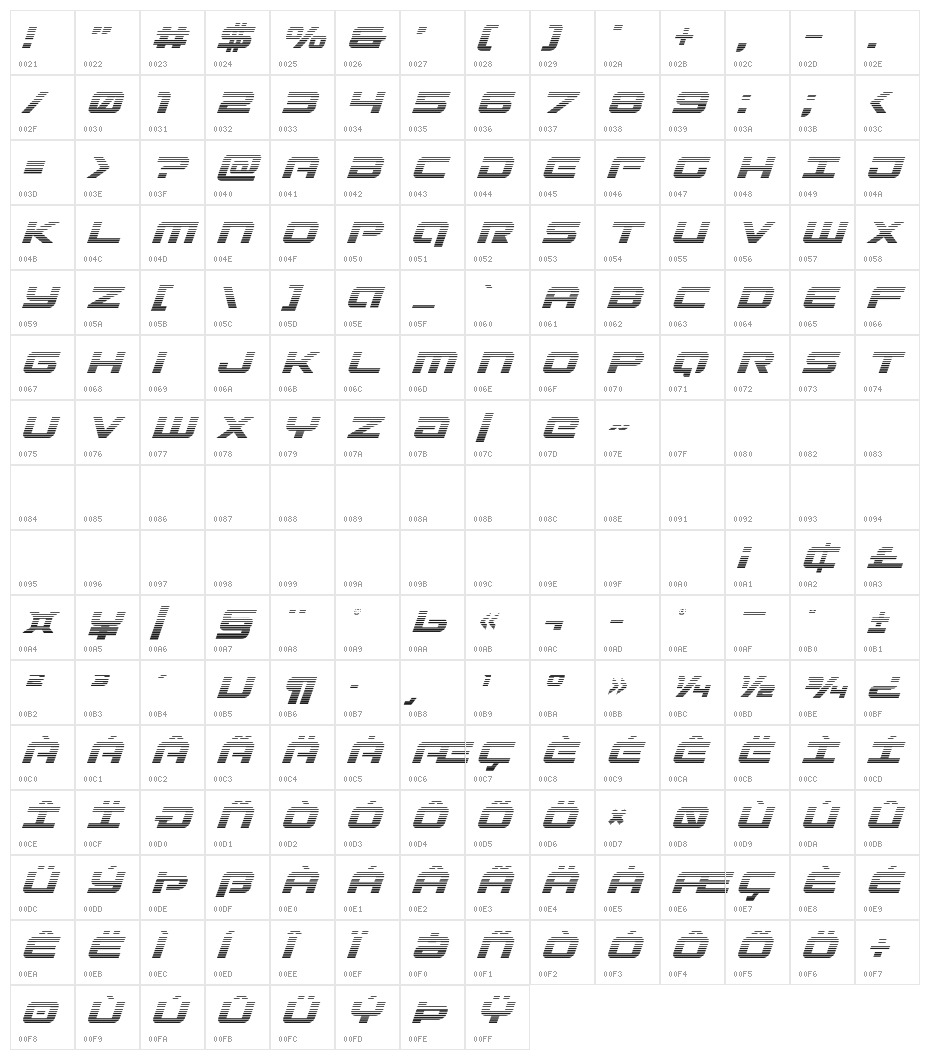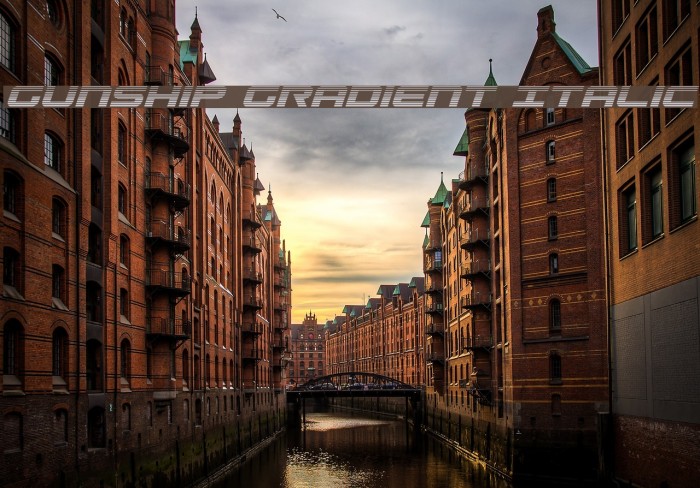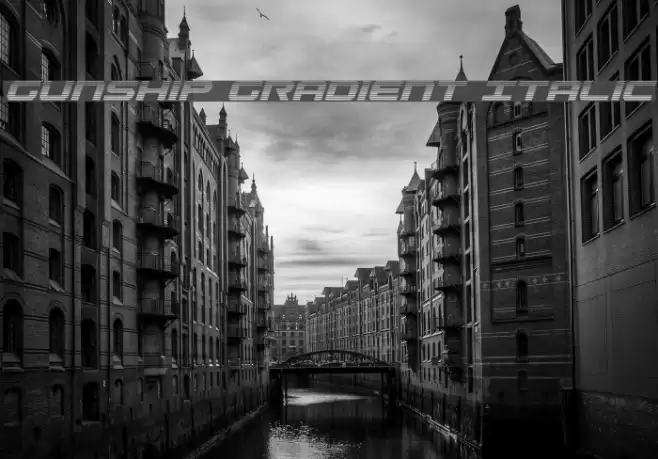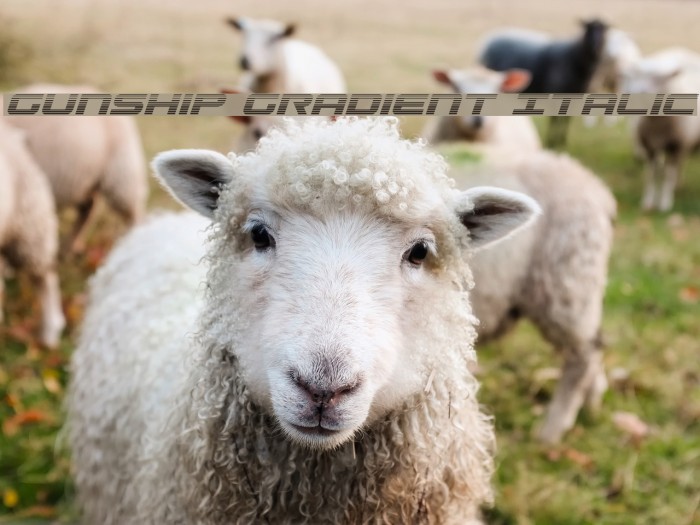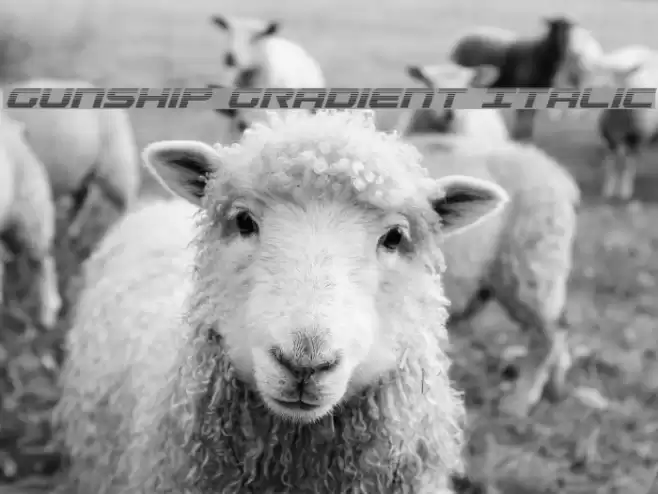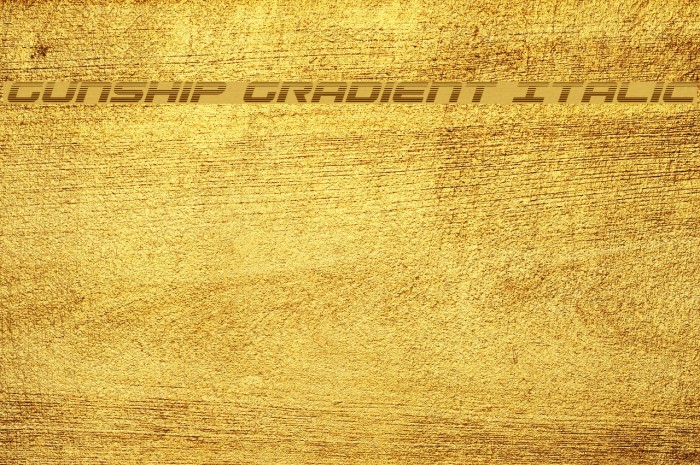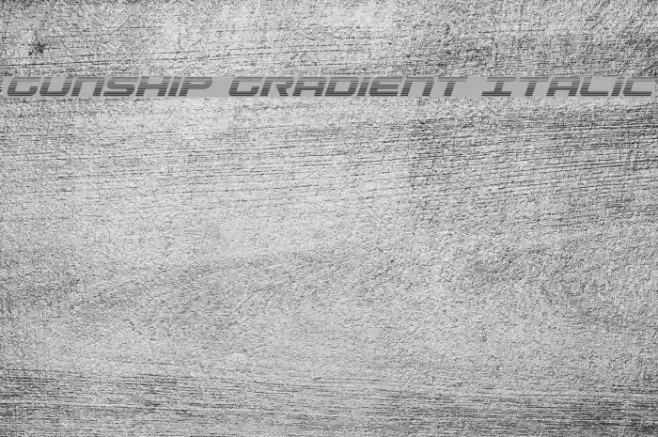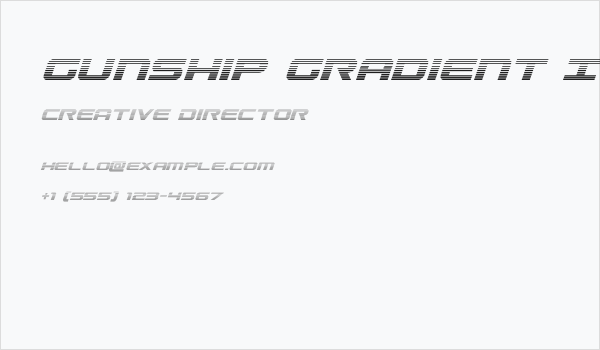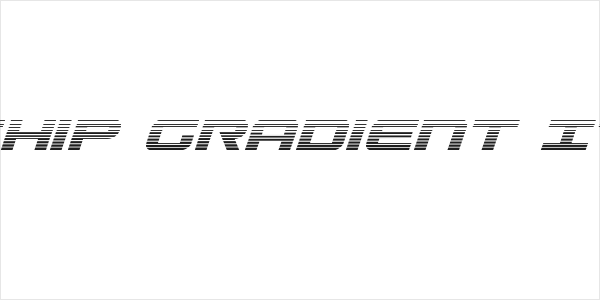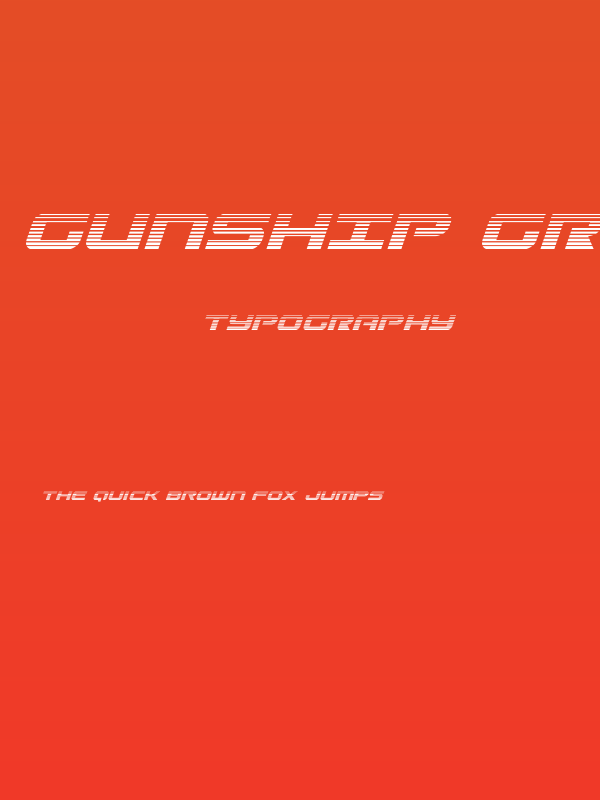
Gunship Gradient Italic Font
Gunship Gradient Italic Description
This font features a futuristic and dynamic design, characterized by its italicized and gradient-striped appearance. The characters are constructed with a series of parallel lines, creating a sense of movement and speed. The uppercase and lowercase letters maintain a consistent style, with sharp angles and a sleek, modern aesthetic. The numerals and special characters follow the same design principles, ensuring uniformity across all elements. This font's unique style makes it stand out, offering a bold and eye-catching look suitable for various creative applications.
Overall StyleFuturistic, Dynamic
Proposed ProjectsIdeal for sci-fi themed projects, video game titles, tech branding, and futuristic posters.